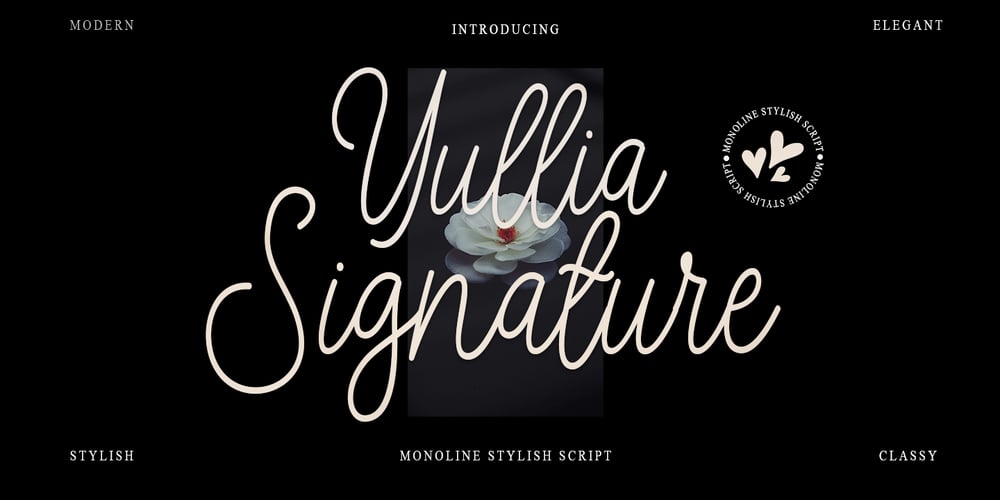
Yullia Signature
Yullia Signature font
Yullia Signature Font Family was designed by Ikhsan Maulana and published by IM Studio. Yullia Signature contains 1 styles and family package options. Introducing Yullia Handwritten SignatureThis font is a smooth, elegant and flowing handwritten font. It has a beautiful and unique combination of letter bindings, so the author arranges them with slightly swirling embeddings, resulting in a font that is modern and ready to make a statement by adding an elegant and unique touch to your next design. project. Add it to your most creative ideas and watch how it brings them to life!This font can be used for various purposes such as Magazine Titles, Posters, Logos, T-Shirts, Sub Titles, Business Cards, Magazines, Book Covers, Wedding Invitations, Instagram Story Post Templates, Greeting Cards, Quotes, etc.FEATURE- Uppercase and lowercase letters- Numbering and Punctuation- Ligatures & Alternatives- Multilingual Support- Works on PC or Mac- Simple Installation- Supports Adobe Illustrator, Adobe Photoshop, Adobe InDesign, also works in Microsoft WordHope you like it.Thank You.